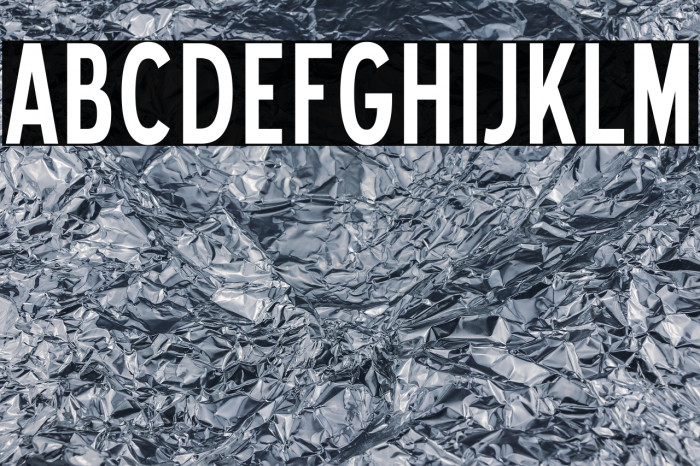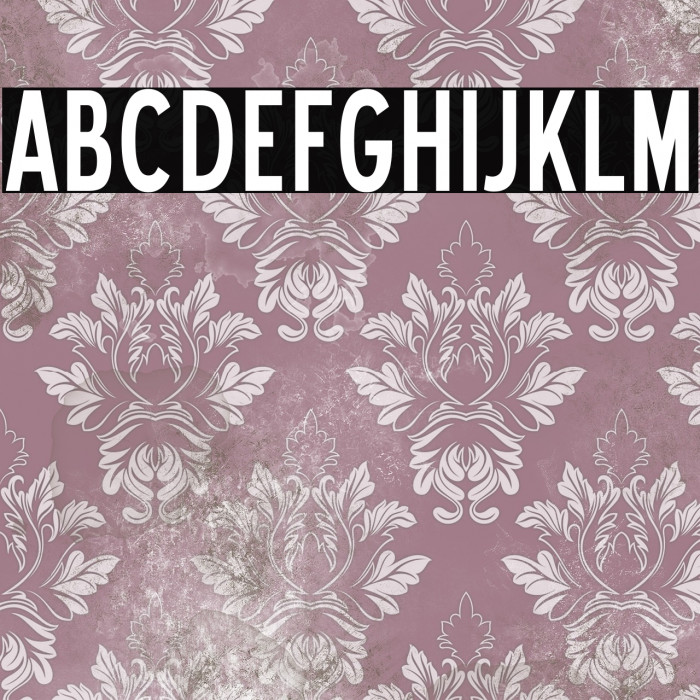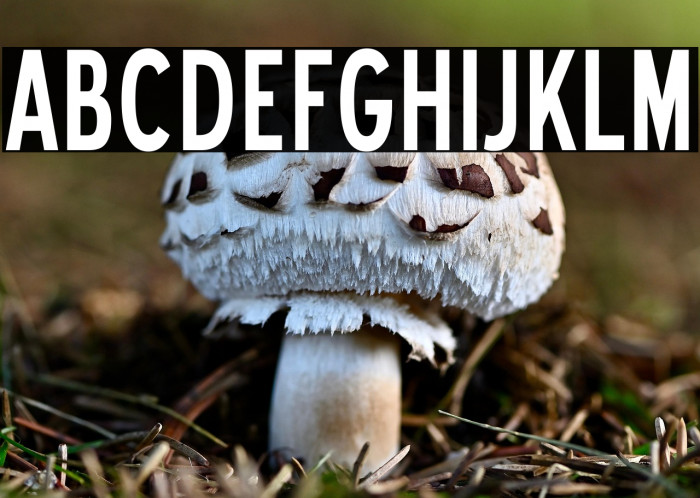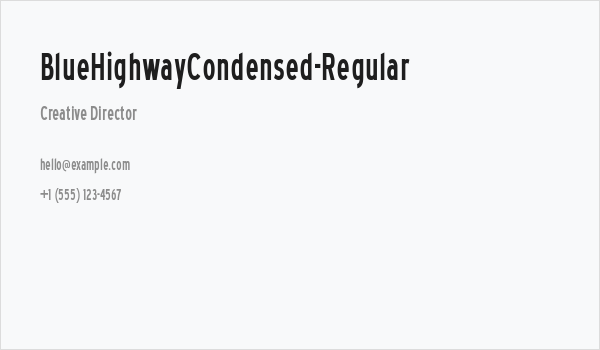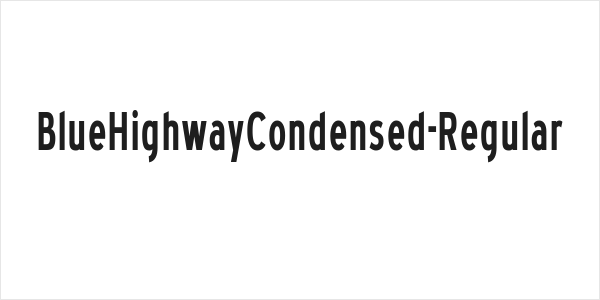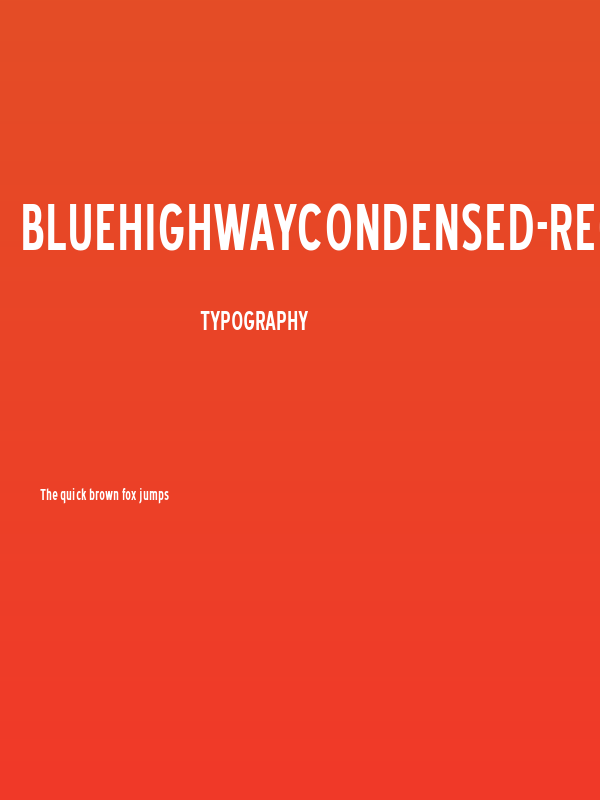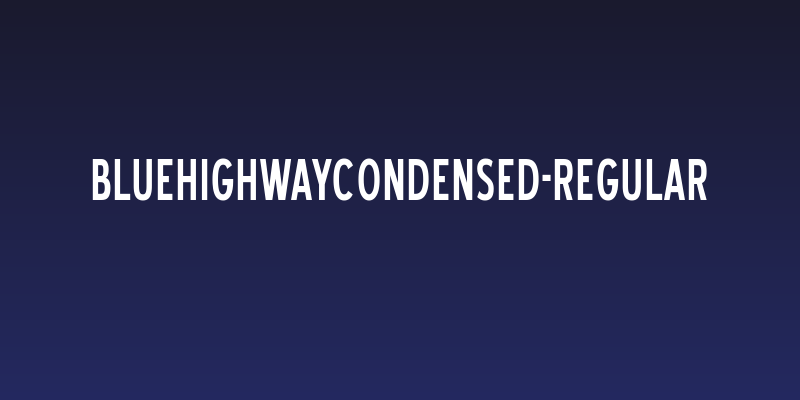
BlueHighwayCondensed-Regular Font
BlueHighwayCondensed-Regular Description
This font features a clean and modern sans-serif style with a condensed width, making it ideal for space-saving designs. The characters are bold and uniform, with a consistent stroke weight that provides a strong visual impact. The uppercase and lowercase letters are well-proportioned, and the numerals are clear and legible. Special characters are included, maintaining the same bold and condensed aesthetic. This font is versatile and can be used in various design contexts where clarity and impact are essential.
| Use Case | Headlines, Signage, Posters |
| Proposed Projects | Perfect for signage, posters, headlines, and branding materials where space is limited but impact is needed. |